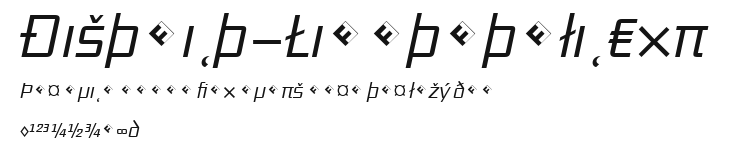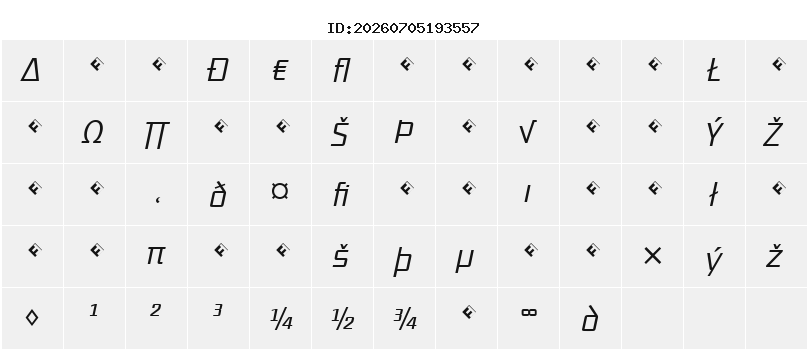
• Font Name: District-LightItalicExp
• Full Font Name: District-LightItalicExp
• Copyright: 2004 Albert Boton, published by FontShop International for the FontFont library.
• Designer: Albert Boton
• Manufacturer: FontShop International
About District-LightItalicExp.ttf
District-LightItalicExp.ttf is a modern, elegant sans-serif font designed for ultimate readability and visual harmony. Perfect for branding, headlines, web design, and print materials.